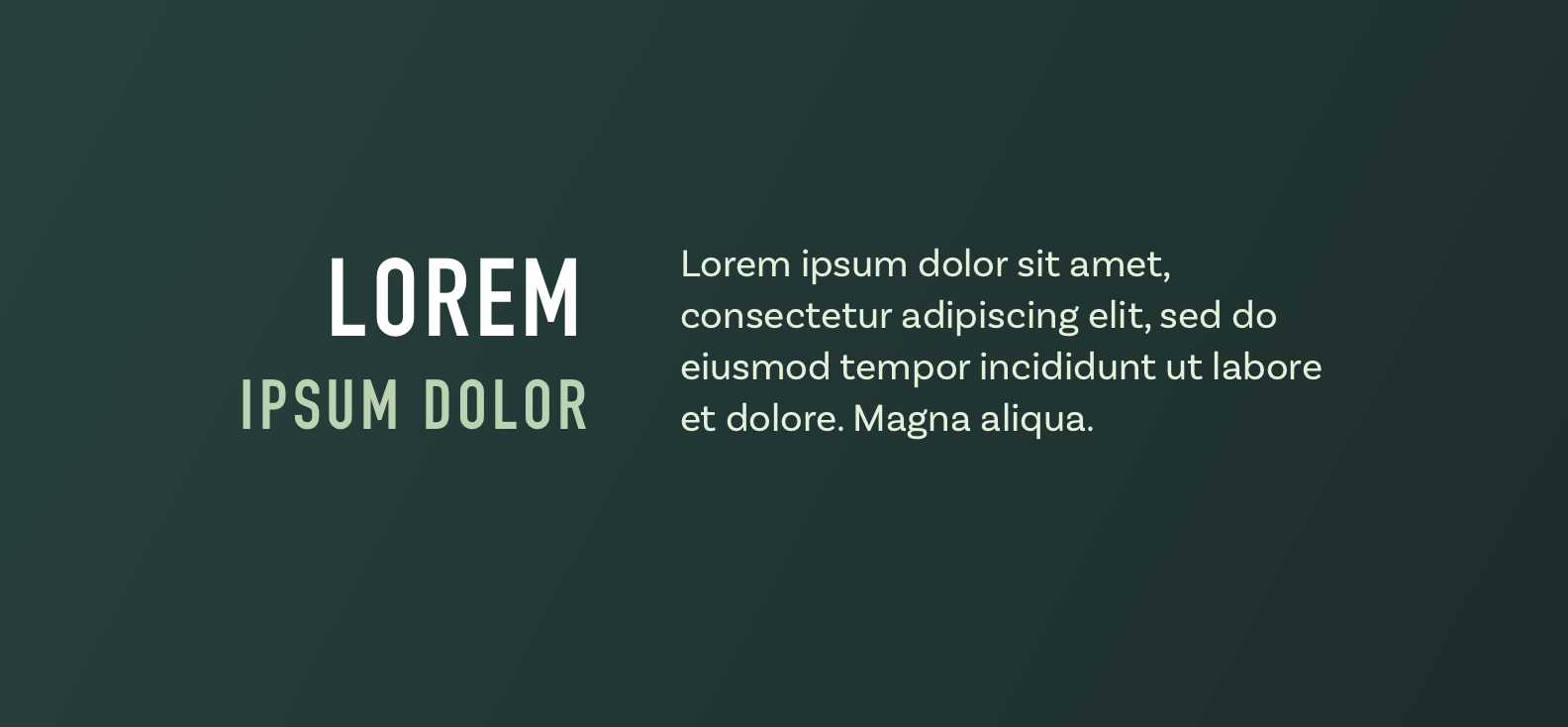
Avenir Condensed Font Pairing
Avenir Condensed Font Pairing. September 5, 2021 by eduard hoffmann. Avenir next condensed heavy italic 13.0d1e10 font sample.
Avenir next condensed regular 12.0d1e9 font sample. This font style is compatible with both big and small display sizes. This font is very popular for its pairing functions.
Kepler Is Named After German Astronomer Johannes Kepler And Was Inspired By Classic Modern Eighteenth Century Typefaces.
Avenir next lt w02sc condensed. Avenir font is designed in 1988 by a professional designer. This font style is compatible with both big and small display sizes.
Typography Avenir Next Lt Pro Condensed
It includes new small caps, newly designed true italics, and a complete new range of condensed weights. Avenir next condensed is a versatile sans serif family, ready for large and complex projects from books to signage to advertising. This family is not only an update though, in fact it is the expansion of the original concept that takes the avenir next design to the next level.
This Typeface Is An Excellent Instance Of Traditional Typeface Styles Coming Into The World Of Virtual Typography.
Avenir Next Condensed Ultra Light 13.0D1E10 Font Sample.
This font style has been designed with a fine and neat texture appearance. Avenir next pro is a new take on a classic face—it’s the result of a project whose goal was to take a beautifully designed sans and update it so that its technical standards surpass the status quo, leaving us with a truly superior sans family. This is the most used typeface of adobe but this is not an adobe font.
Avenir Next Pro Condensed Font: